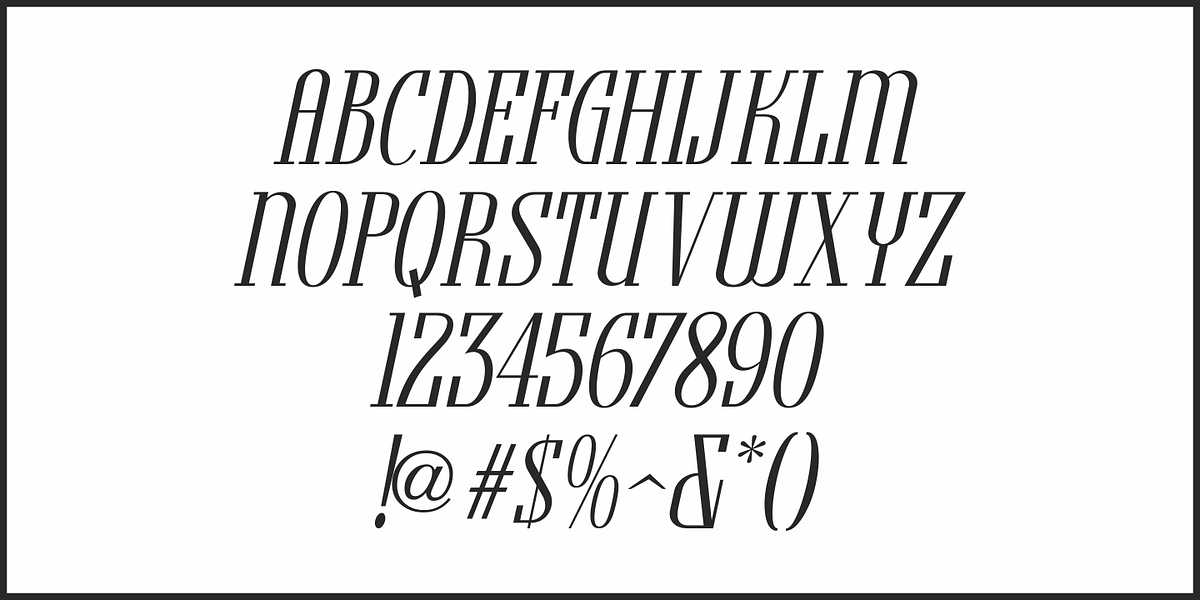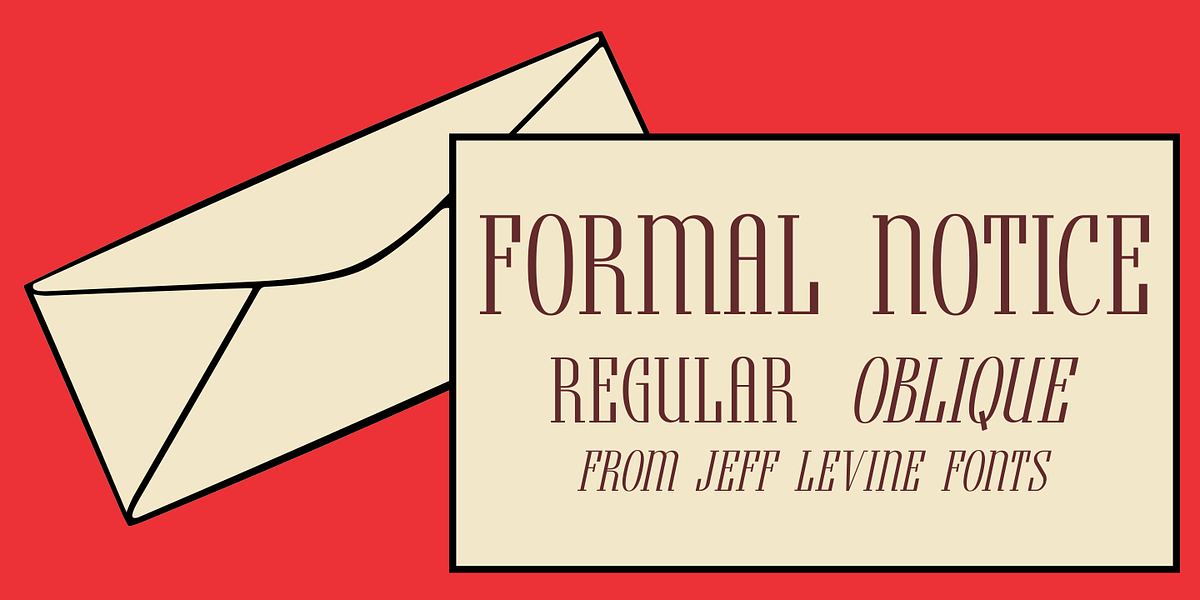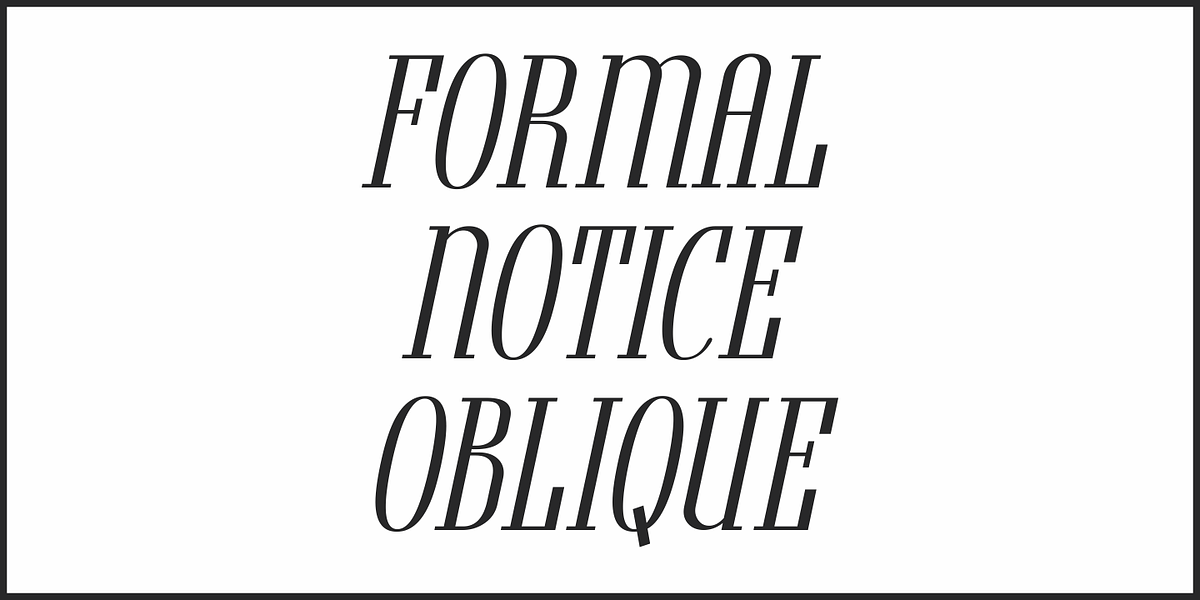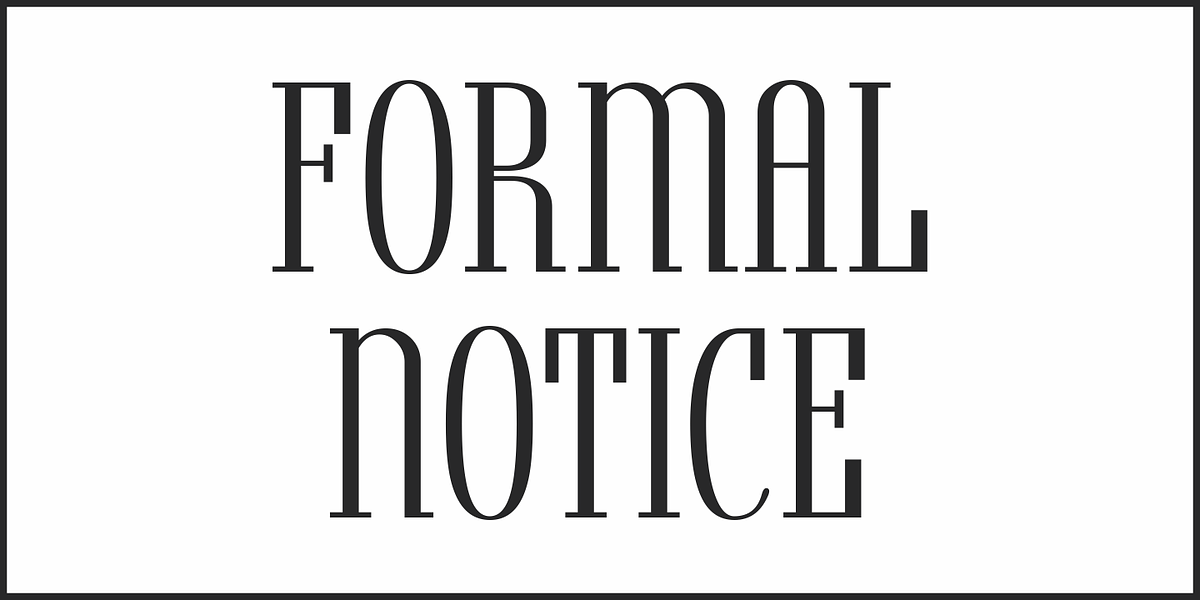
Formal Notice JNL
Samuel Welo’s “Studio Handbook for Artists and Advertisers” was a popular book of inspiration for sign painters, graphic artists and designers from the 1920s through the 1960s. Many digital revivals of Welo’s hand lettered typography have been made available.
Formal Notice JNL is one such revival, and is available in both regular and oblique versions.